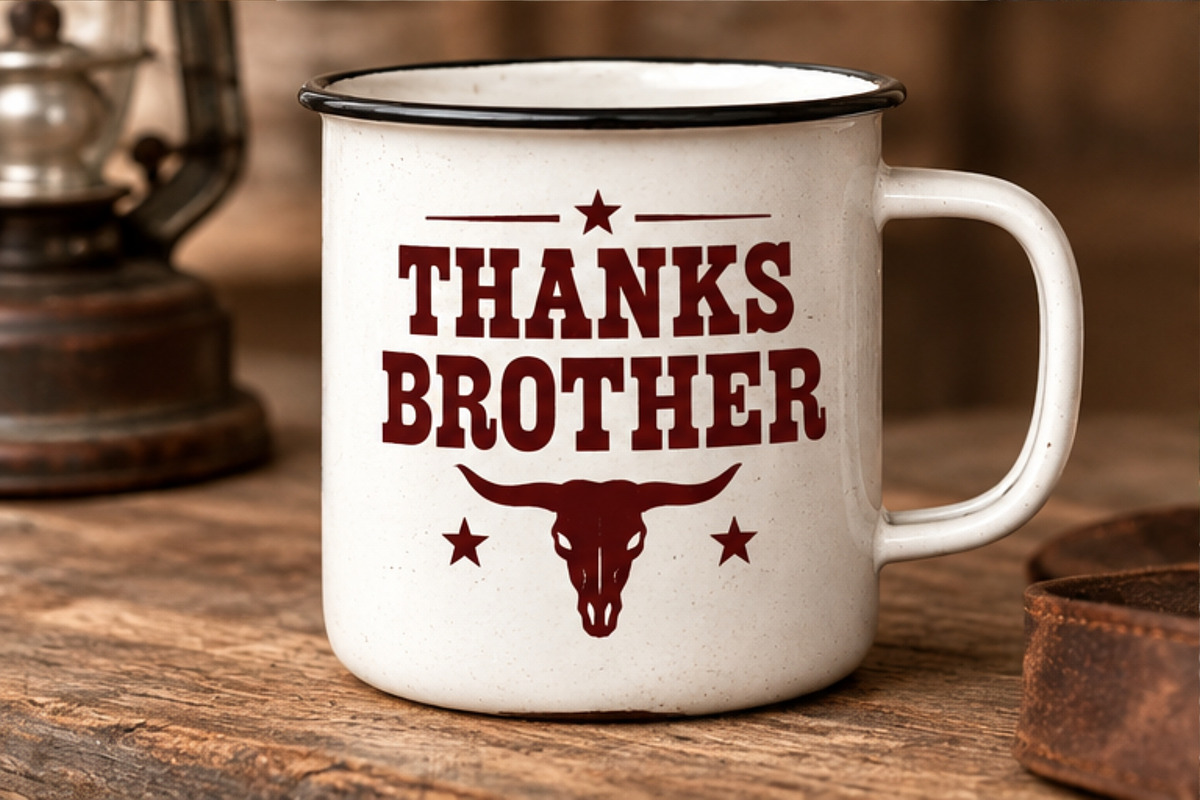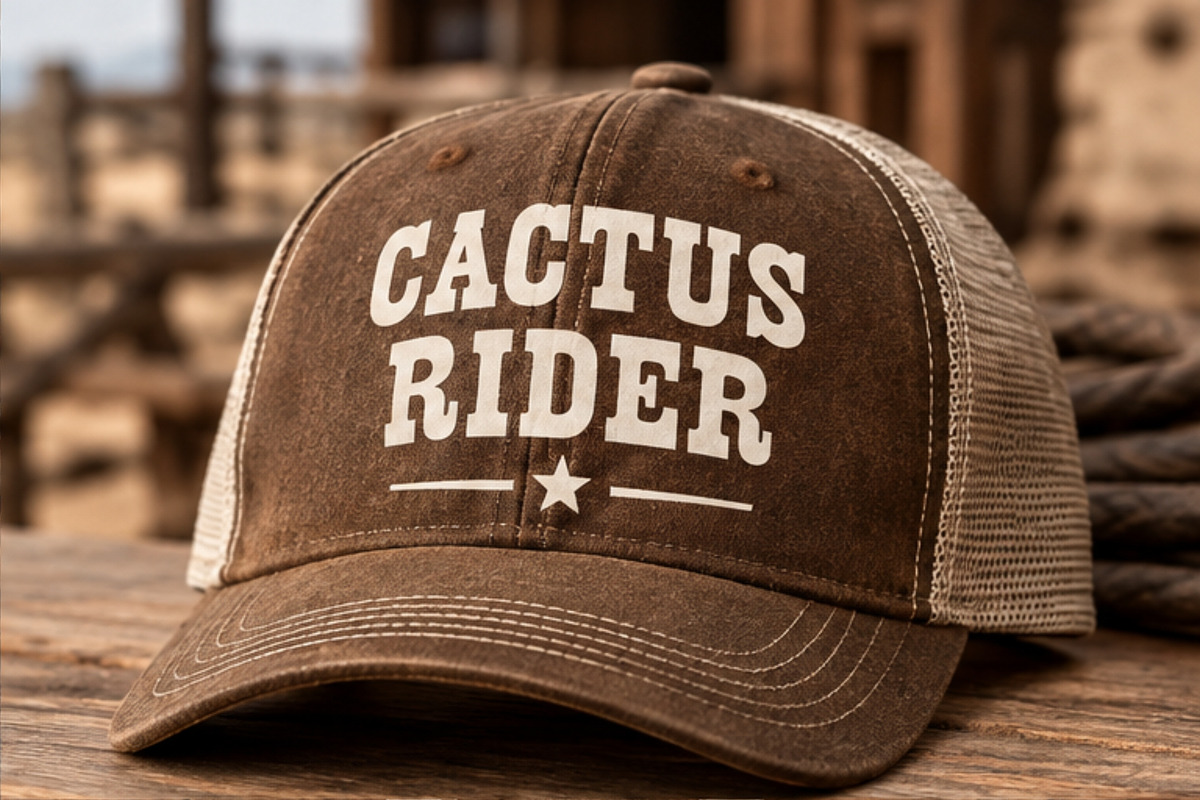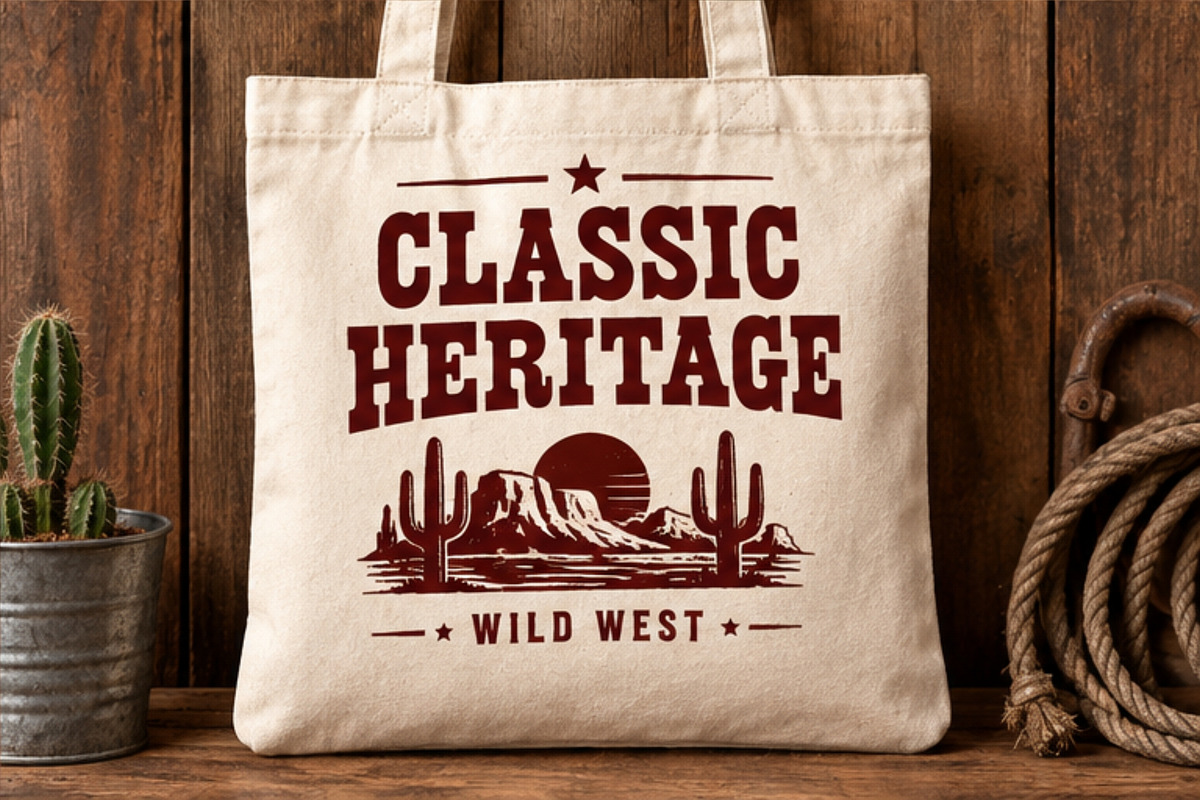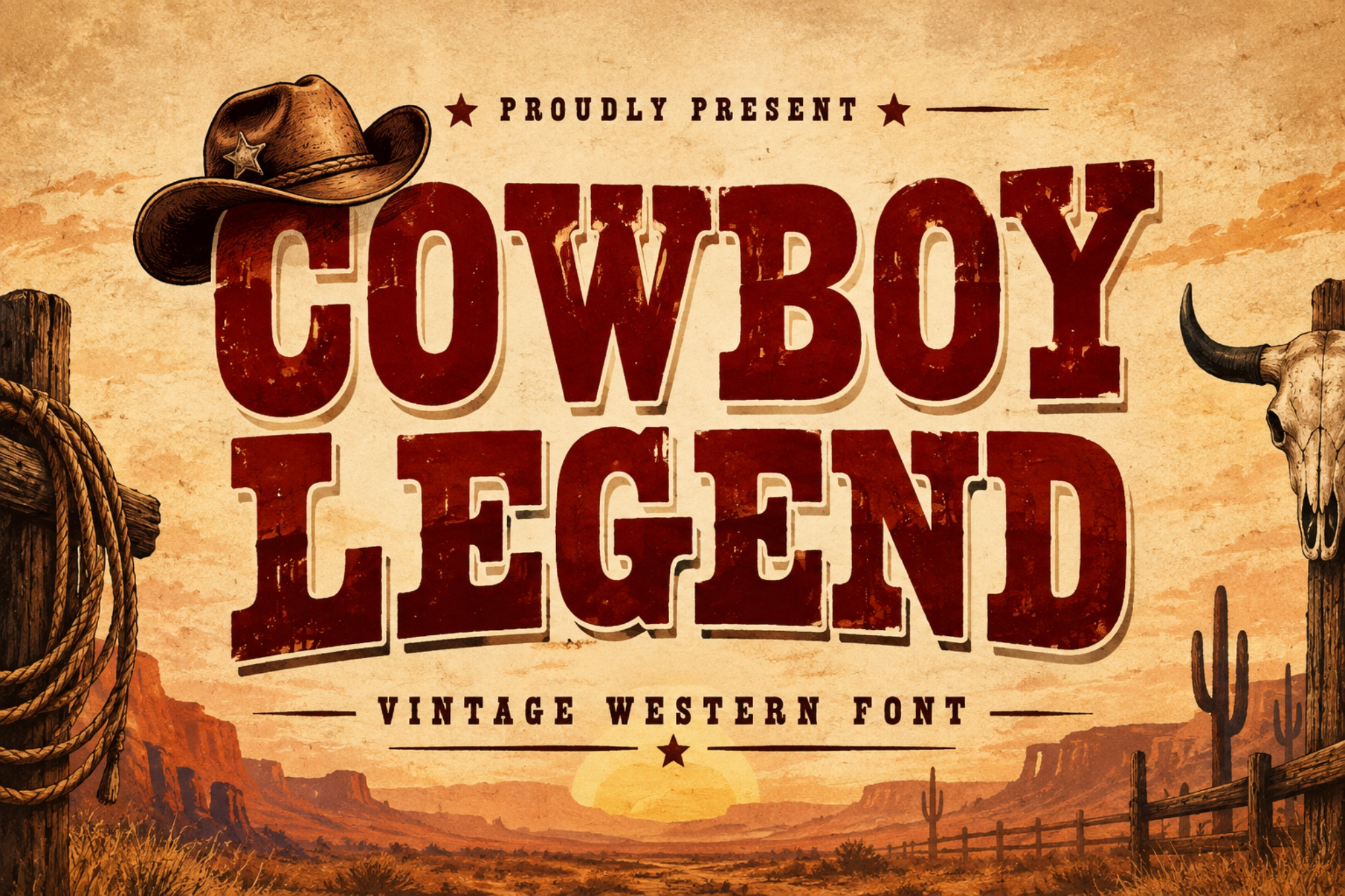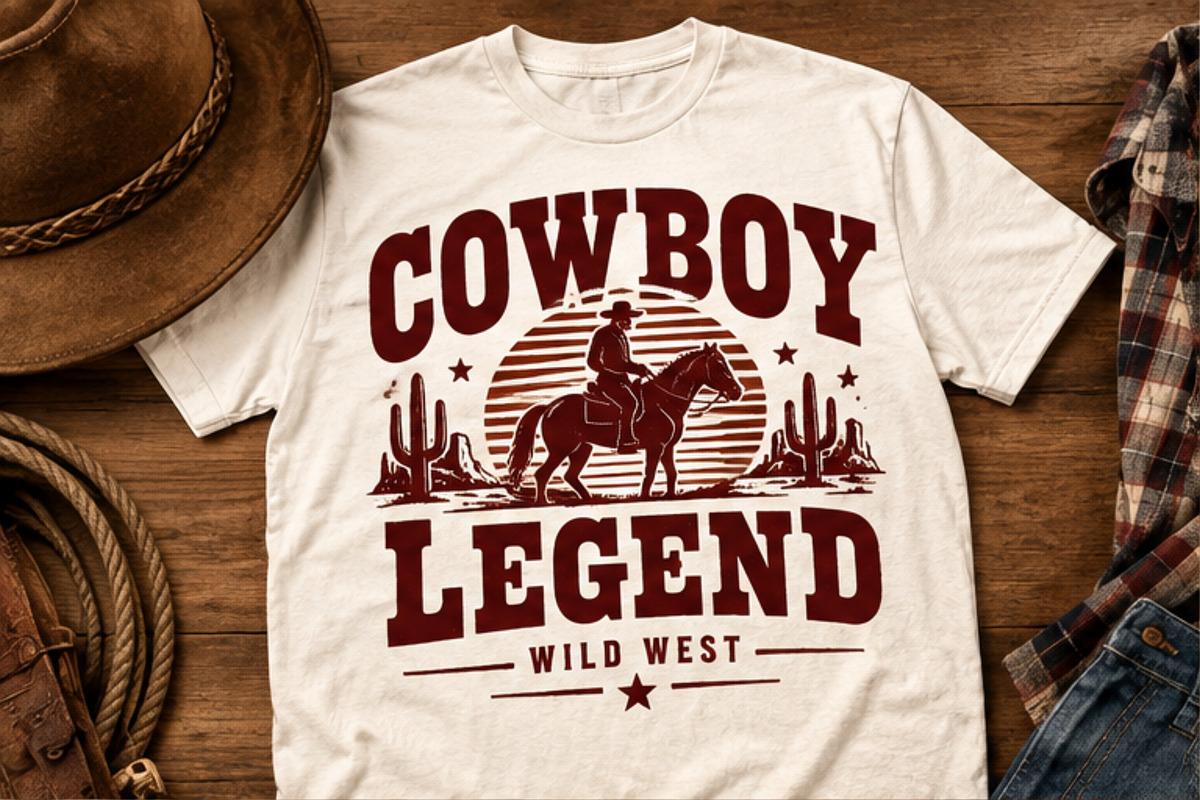
Cowboy Legend - Vintage Font
Saddle up with Cowboy Legend, a bold and rugged vintage Western font designed to bring classic Wild West character to your creative projects.
Inspired by cowboy culture, old saloon signs, rodeo graphics, ranch branding, and vintage Americana, Cowboy Legend features strong, distinctive letterforms with a timeless Western appearance.
Perfect for T-shirts, logos, badges, posters, signage, packaging, labels, merchandise, stickers, social media graphics, and branding projects. Whether you’re creating a cowboy-themed design, rustic branding, rodeo artwork, or retro typography, Cowboy Legend adds a powerful Western touch.